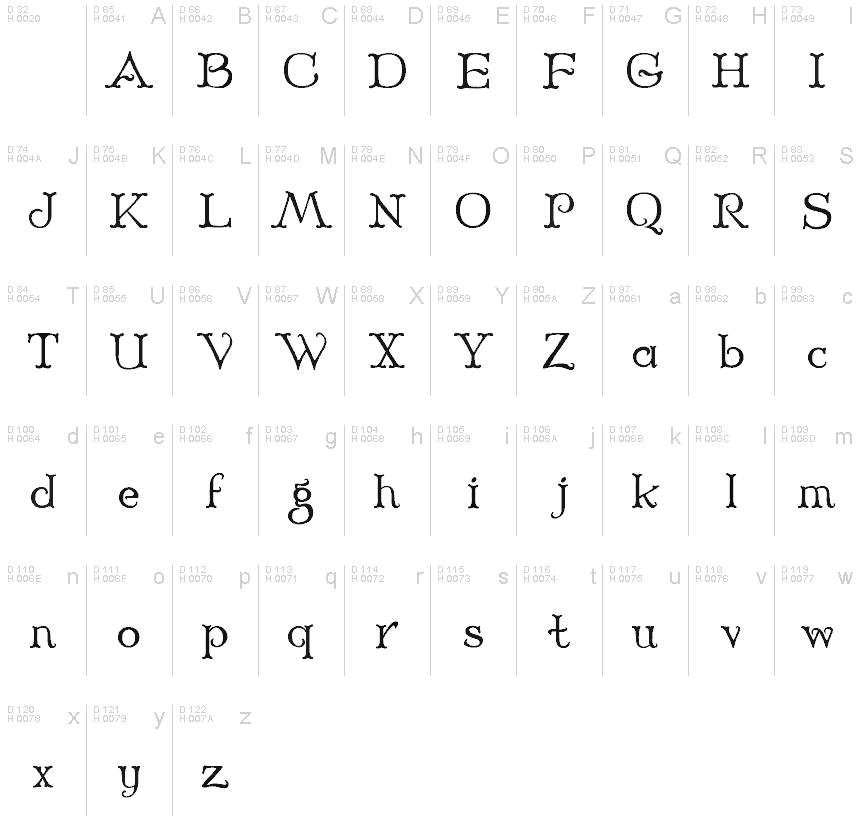
MIDNIGHT
Midnight, a captivating display font, embodies a harmonious blend of elegance and striking presence. Crafted by the renowned designer Faqih Fawaji, this typeface exudes a sense of timelessness, with its ornate serifs and graceful curves.
The bold, yet refined letterforms lend an air of sophistication, making Midnight an ideal choice for header text, poster designs, and editorial layouts. Its versatility shines through, seamlessly complementing a wide range of design styles, from classic to modern, and effortlessly elevating the visual impact of any project.